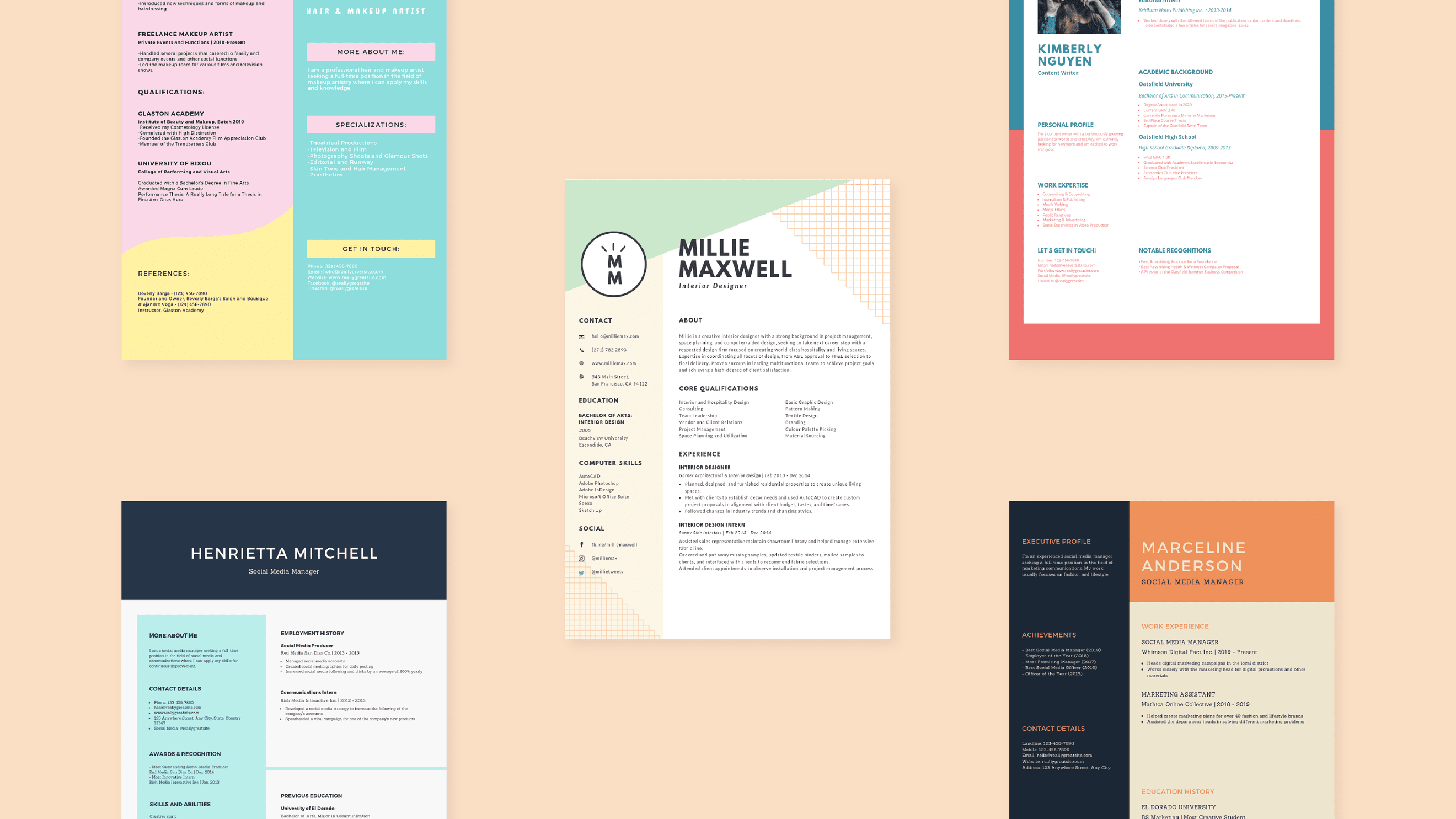
Best Font For A Resume 2020 . Will an applicant tracking system (ats). It can also make your resume easier to read, influencing recruiters to spend more time on it. The key is to focus on. Here are the 10 best resume fonts to impress both hiring managers and ats. Plus, learn how to avoid common resume formatting mistakes. The right font for your resume will look serious and professional, grab the recruiter’s attention in the first few seconds, and pass the ats scan. The best font for your resume resume is whichever typeface successfully highlights your skills and experience, and matches the role you’re applying for. Times new roman is probably the most commonly chosen fonts for resumes—the very reason you should avoid it,. A strong font choice can increase your credibility. What makes a font a 'best font for a resume?' 12 best fonts for a resume.
Times new roman is probably the most commonly chosen fonts for resumes—the very reason you should avoid it,. The right font for your resume will look serious and professional, grab the recruiter’s attention in the first few seconds, and pass the ats scan. What makes a font a 'best font for a resume?' 12 best fonts for a resume. The key is to focus on. A strong font choice can increase your credibility. It can also make your resume easier to read, influencing recruiters to spend more time on it. The best font for your resume resume is whichever typeface successfully highlights your skills and experience, and matches the role you’re applying for. Plus, learn how to avoid common resume formatting mistakes. Here are the 10 best resume fonts to impress both hiring managers and ats. Will an applicant tracking system (ats).
Best Font For A Resume 2020 It can also make your resume easier to read, influencing recruiters to spend more time on it. The key is to focus on. What makes a font a 'best font for a resume?' 12 best fonts for a resume. Will an applicant tracking system (ats). A strong font choice can increase your credibility. Times new roman is probably the most commonly chosen fonts for resumes—the very reason you should avoid it,. Here are the 10 best resume fonts to impress both hiring managers and ats. The best font for your resume resume is whichever typeface successfully highlights your skills and experience, and matches the role you’re applying for. Plus, learn how to avoid common resume formatting mistakes. The right font for your resume will look serious and professional, grab the recruiter’s attention in the first few seconds, and pass the ats scan. It can also make your resume easier to read, influencing recruiters to spend more time on it.
Best Font For Resume 2020 Best Font For A Resume 2020 Times new roman is probably the most commonly chosen fonts for resumes—the very reason you should avoid it,. A strong font choice can increase your credibility. It can also make your resume easier to read, influencing recruiters to spend more time on it. Will an applicant tracking system (ats). Plus, learn how to avoid common resume formatting mistakes. The key. Best Font For A Resume 2020.
16+ Modern resume font 2020 That You Can Imitate Best Font For A Resume 2020 What makes a font a 'best font for a resume?' 12 best fonts for a resume. The key is to focus on. A strong font choice can increase your credibility. The right font for your resume will look serious and professional, grab the recruiter’s attention in the first few seconds, and pass the ats scan. The best font for your. Best Font For A Resume 2020.
10 Best Resume Font That Will Help You Land Interviews Best Font For A Resume 2020 Plus, learn how to avoid common resume formatting mistakes. Will an applicant tracking system (ats). The right font for your resume will look serious and professional, grab the recruiter’s attention in the first few seconds, and pass the ats scan. Times new roman is probably the most commonly chosen fonts for resumes—the very reason you should avoid it,. Here are. Best Font For A Resume 2020.
Best Fonts for a Resume in 2024 Resume Font Tips Best Font For A Resume 2020 The right font for your resume will look serious and professional, grab the recruiter’s attention in the first few seconds, and pass the ats scan. Will an applicant tracking system (ats). A strong font choice can increase your credibility. The key is to focus on. Here are the 10 best resume fonts to impress both hiring managers and ats. What. Best Font For A Resume 2020.
20++ font for resume 2020 For Your Application Best Font For A Resume 2020 Times new roman is probably the most commonly chosen fonts for resumes—the very reason you should avoid it,. A strong font choice can increase your credibility. It can also make your resume easier to read, influencing recruiters to spend more time on it. The key is to focus on. Here are the 10 best resume fonts to impress both hiring. Best Font For A Resume 2020.
38+ Best font to use for resume 2020 For Your Application Best Font For A Resume 2020 Plus, learn how to avoid common resume formatting mistakes. A strong font choice can increase your credibility. Times new roman is probably the most commonly chosen fonts for resumes—the very reason you should avoid it,. The right font for your resume will look serious and professional, grab the recruiter’s attention in the first few seconds, and pass the ats scan.. Best Font For A Resume 2020.
These Are The Best Fonts For Your Resume In 2020 Cultivated Culture Best Font For A Resume 2020 Plus, learn how to avoid common resume formatting mistakes. The right font for your resume will look serious and professional, grab the recruiter’s attention in the first few seconds, and pass the ats scan. What makes a font a 'best font for a resume?' 12 best fonts for a resume. Times new roman is probably the most commonly chosen fonts. Best Font For A Resume 2020.
These Are The Best Fonts For Your Resume In 2020 Cultivated Culture Best Font For A Resume 2020 It can also make your resume easier to read, influencing recruiters to spend more time on it. Times new roman is probably the most commonly chosen fonts for resumes—the very reason you should avoid it,. The right font for your resume will look serious and professional, grab the recruiter’s attention in the first few seconds, and pass the ats scan.. Best Font For A Resume 2020.